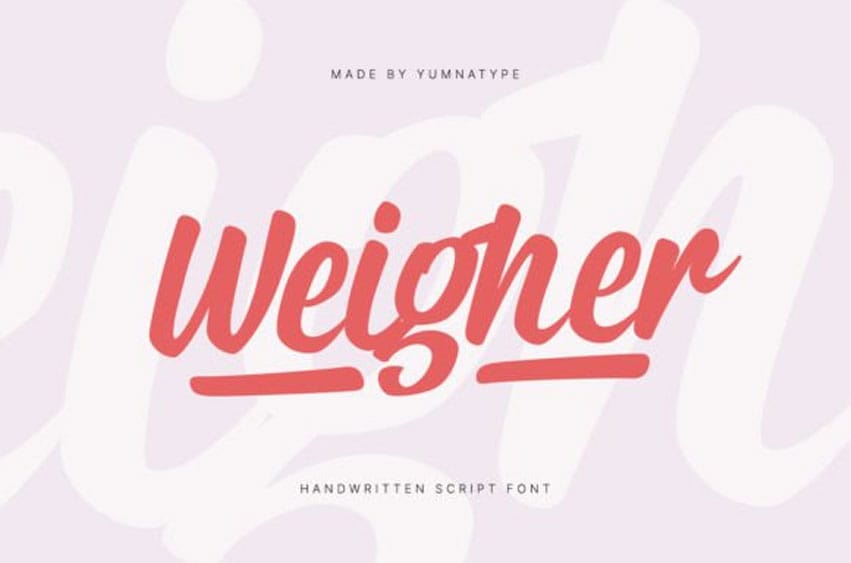
Weigher Font is a delightful handwritten font designed to bring a sense of playfulness and charm to any project. Its shapes tend to be rounded, creating a friendly and approachable aesthetic that invites engagement and captures attention effortlessly.
Crafted with a quite thin weight, Weigher offers an airy and light feel that adds a touch of elegance and sophistication to its playful style. The high contrast between the strokes enhances the font’s legibility and visual interest, ensuring that each letter stands out clearly and beautifully in any context.